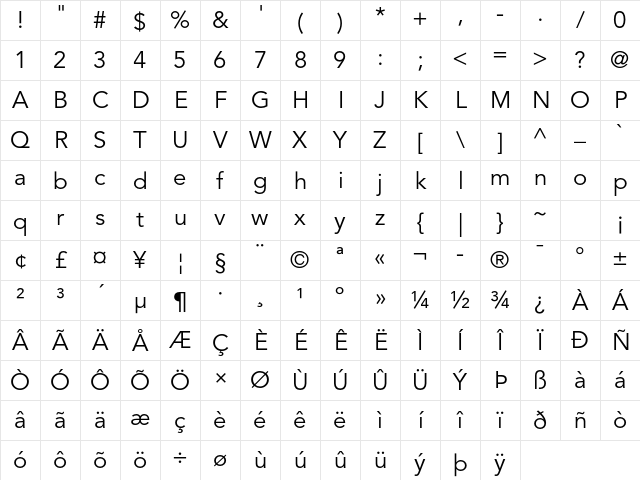
Complete Avenir LT W04 45 SemLt Regular glyph index. Displaying only characters natively supported by Avenir LT W04 45 SemLt Regular font.
Avenir LT W04 45 SemLt is a composed and adaptable typeface that performs quietly and consistently across a wide range of design contexts. Its slender proportions lend an understated elegance to any composition.